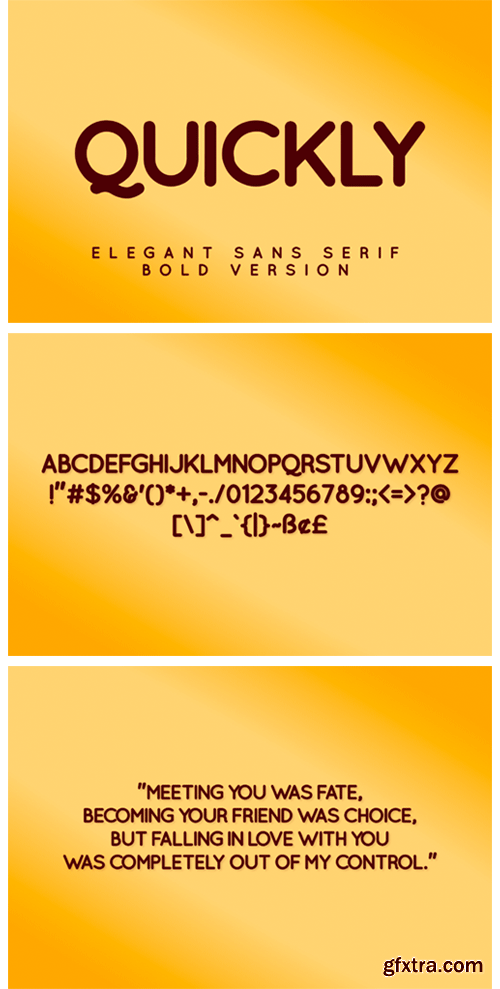
Quickly Font
Quickly may look simple and casual, but it’s a surprisingly elegant sans serif typeface that features balanced curves and an overall friendly tone.